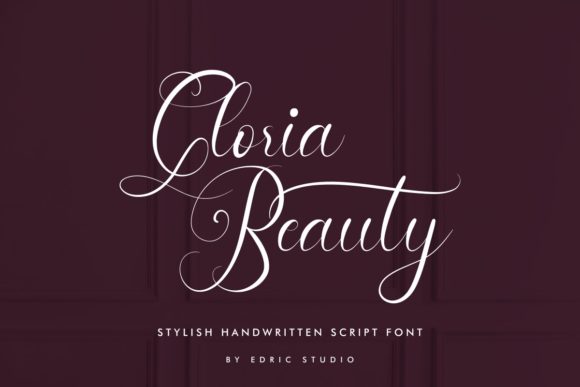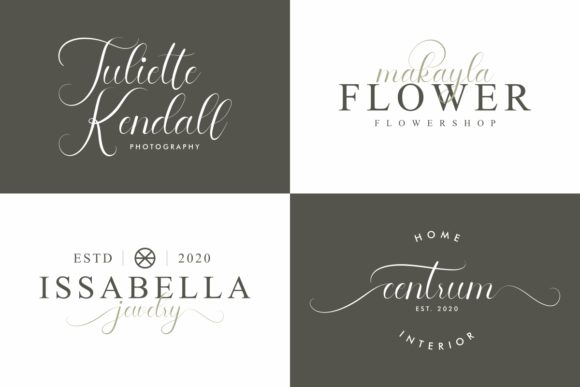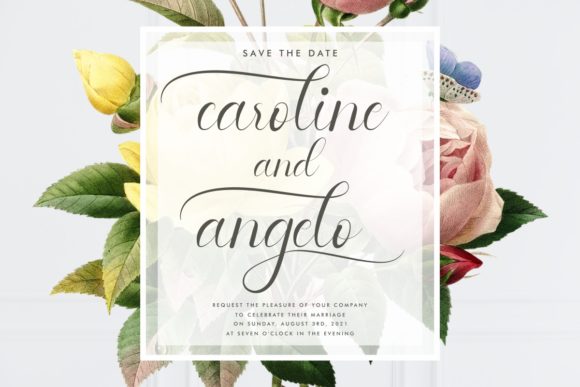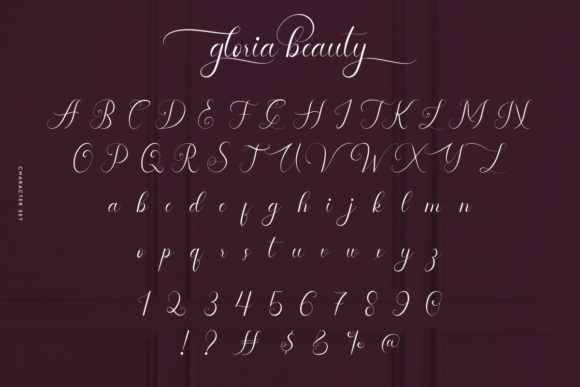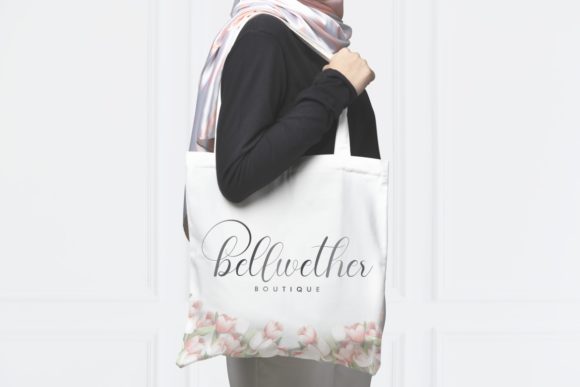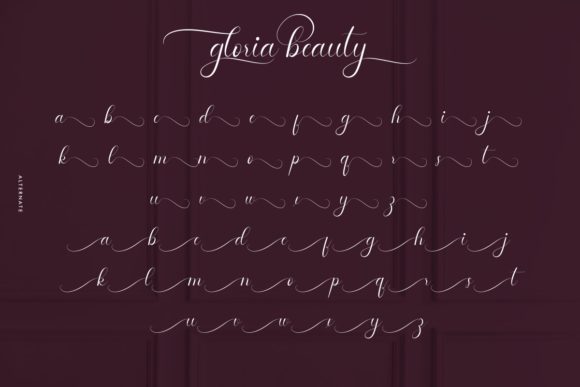
Discover the Elegance of Gloria Beauty Font: A Delicate Handwritten Masterpiece
In the world of typography, few fonts capture the essence of elegance and delicacy as beautifully as the Gloria Beauty Font. This stunning handwritten font is a treasure trove for designers and crafters looking to infuse their projects with a touch of sophistication and charm. With its distinct and well-rounded letters, Gloria Beauty stands out as a masterpiece that can elevate any design to new heights.
The Unique Charm of Gloria Beauty
Gloria Beauty Font is more than just a collection of letters; it’s an expression of artistry and finesse. Each character is meticulously crafted to exude a sense of delicacy and refinement, making it perfect for projects that demand a high level of elegance. Whether you’re working on wedding invitations, branding materials, or personal crafts, Gloria Beauty brings a versatile style that can adapt to any creative vision.
Key Features of Gloria Beauty Font
- Delicate and Elegant Design: The font’s design is characterized by its delicate strokes and elegant flow, making it a standout choice for projects that require a sophisticated look.
- Distinct and Well-Rounded Letters: Each letter in Gloria Beauty is carefully designed with a unique and rounded style, contributing to its overall charm and readability.
- Incredibly Versatile: The font’s versatility is one of its most compelling features. It can be used across a wide range of projects, from digital content to print materials, and still manage to make a lasting impression.
- PUA Encoded for Easy Access: Gloria Beauty Font is PUA (Private Use Area) encoded, which means that accessing all the glyphs and swashes is straightforward. This feature allows designers to explore the full creative potential of the font without any technical hassles.
Applications of Gloria Beauty Font
The versatility of Gloria Beauty Font makes it suitable for a myriad of applications. Here are a few ideas to get you started:
- Wedding and Event Stationery: Create beautiful wedding invitations, save-the-date cards, and event posters that set the tone for an elegant celebration.
- Branding and Packaging: Use Gloria Beauty to develop a brand identity that speaks of luxury, elegance, and sophistication. It’s perfect for high-end product packaging, logos, and marketing materials.
- Digital Content: Enhance your digital platforms with Gloria Beauty by using it for blog headers, social media graphics, and website content to provide a cohesive and refined aesthetic.
- Crafting and DIY Projects: If you’re into crafting or DIY projects, Gloria Beauty can add a professional and personalized touch to your handmade cards, journals, and scrapbooking.
Tips for Maximizing Gloria Beauty’s Potential
To make the most out of Gloria Beauty Font, consider the following tips:
- Experiment with Colors and Textures: Play around with different colors and textures to see how they complement the font’s elegance. Pastel shades, gold accents, and soft backgrounds can enhance its beauty.
- Mix and Match with Other Fonts: Don’t be afraid to pair Gloria Beauty with other fonts to create interesting contrasts. A combination of serif and script fonts can add depth and visual interest to your designs.
- Utilize Swashes and Glyphs: Take full advantage of the PUA encoding by exploring the font’s swashes and glyphs. These elements can add a unique flair to your text, making it more dynamic and engaging.
Gloria Beauty Font is a delicate and elegant handwritten font that offers a world of creative possibilities. Its distinct and well-rounded letters, combined with its versatility and PUA encoding, make it an invaluable asset for designers and crafters. Whether you’re aiming to create spectacular designs for personal projects or professional endeavors, Gloria Beauty is sure to inspire and elevate your work. Embrace the elegance of Gloria Beauty Font and let it be the cornerstone of your next creative masterpiece.